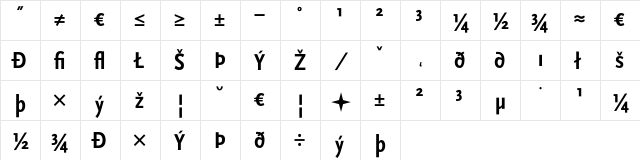
ScalaSans Cond Exp Bold Font Preview
Design Context for ScalaSans Cond Exp Typeface
ScalaSans Cond Exp offers clean, dependable letterforms without strong stylistic allegiance, making it a practical choice for designers who need flexibility. Its bold stroke weight gives it real presence on the page. The condensed width makes it efficient for tight spaces without sacrificing legibility.
Pro Tip: Pair ScalaSans Cond Exp with a font of contrasting weight or personality to build a more expressive typographic hierarchy.